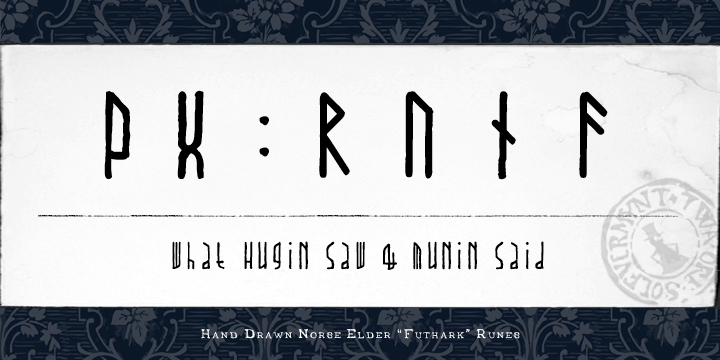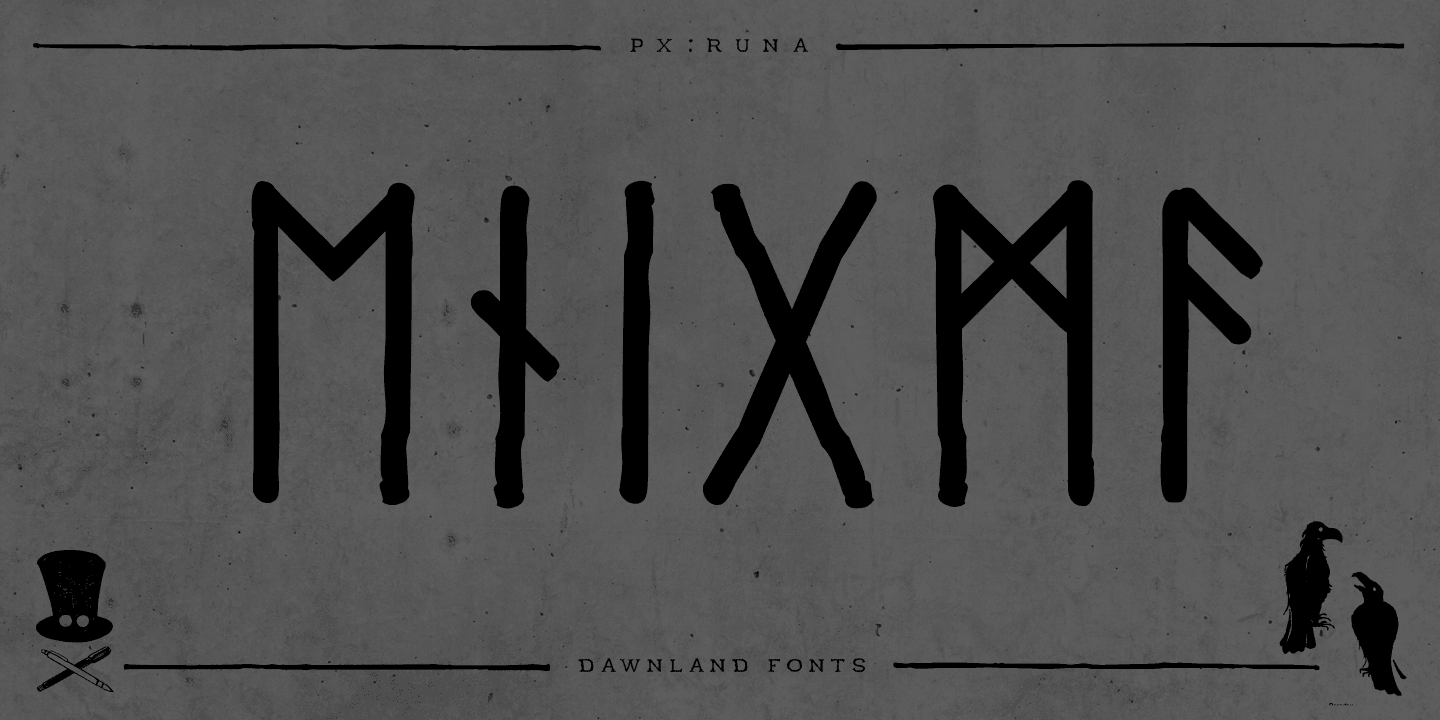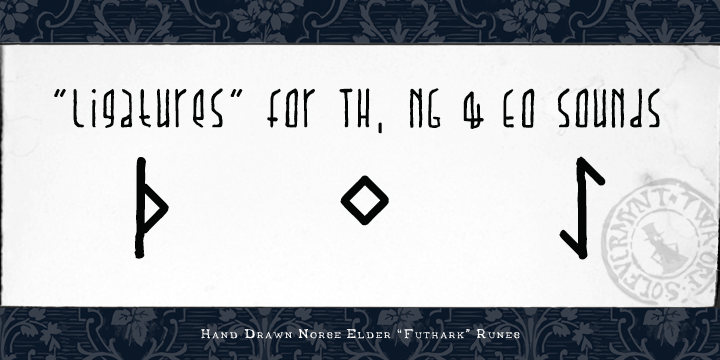
Paradox Runa is a historical font published by Dawnland.
Paradox Runa is based on the futhark, norse elder runes.
“Missing” characters has been replaced with either other “real” runes, or “new” ones have been “invented” so that the font hold all characters for the latin alphabet (A-Z + swedish Å Ä & Ö) + “Numbers” 0-9. I do not claim that this rune alphabet is totally authentic nor correct!
All upper and lower-case letters are the same except for the letter S.
“Ligatures” have been created for the th, ng and eo sounds. These are accessed by writing TH, NG and EO (in upper case letters). Space is automatically replaced by a ‘colon’ (’:’) - if you want a “real” space, write an underscore! (open type version of the font and open type compatible layout application required).